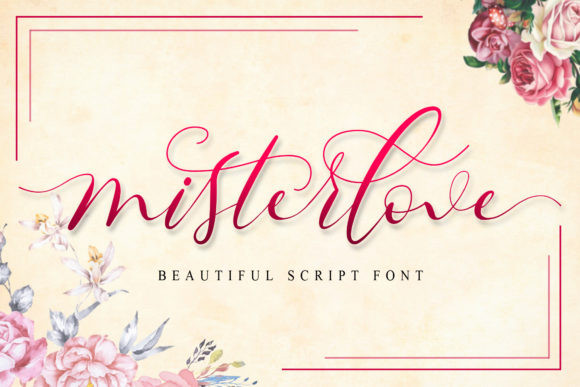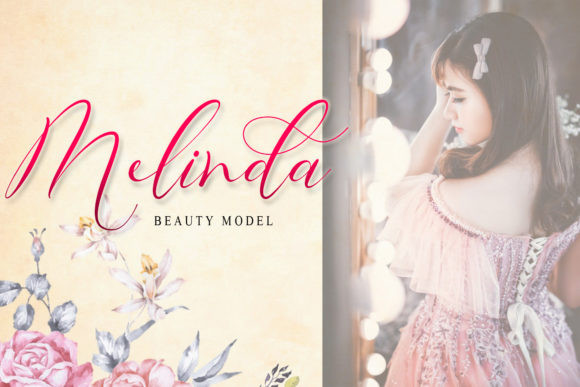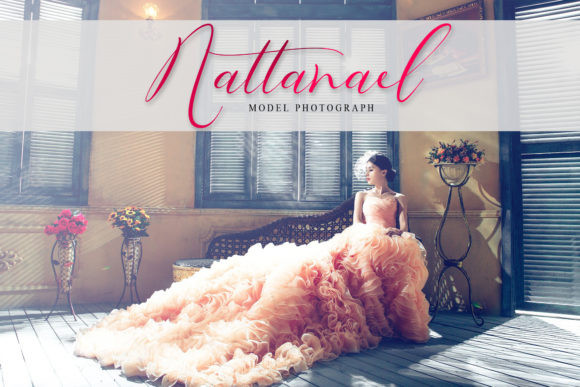
Misterlove Font
Misterlove feels equally charming and elegant. It will elevate a wide range of design projects to the highest level, be it branding, headings, wedding designs, invitations, signatures, logos, labels, and much more!